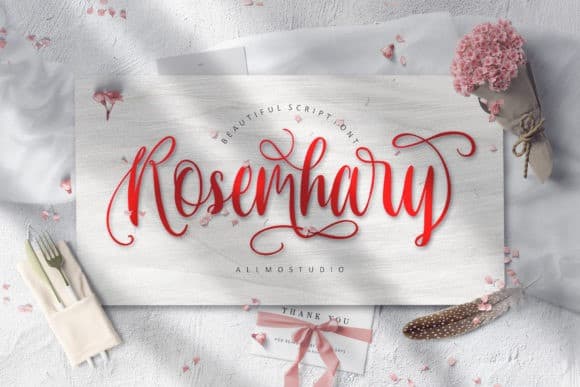
Rosemhary Script Font
Introducing Rosemhary, an elegant, full-featured script font with tons of alternate characters and OpenType features.
Hand-lettered with a heavy right slant, Rosemhary is particularly well-suited to invitations, branding, and editorial design.